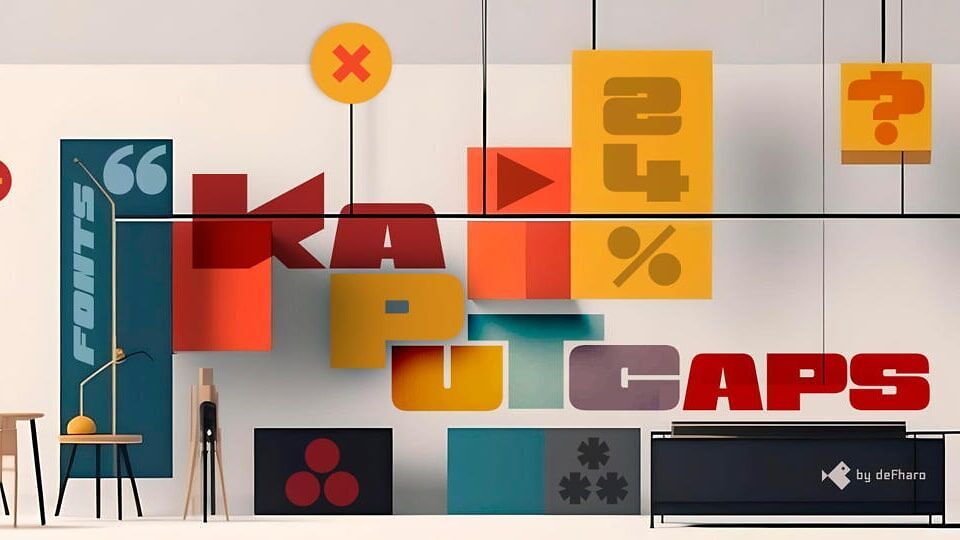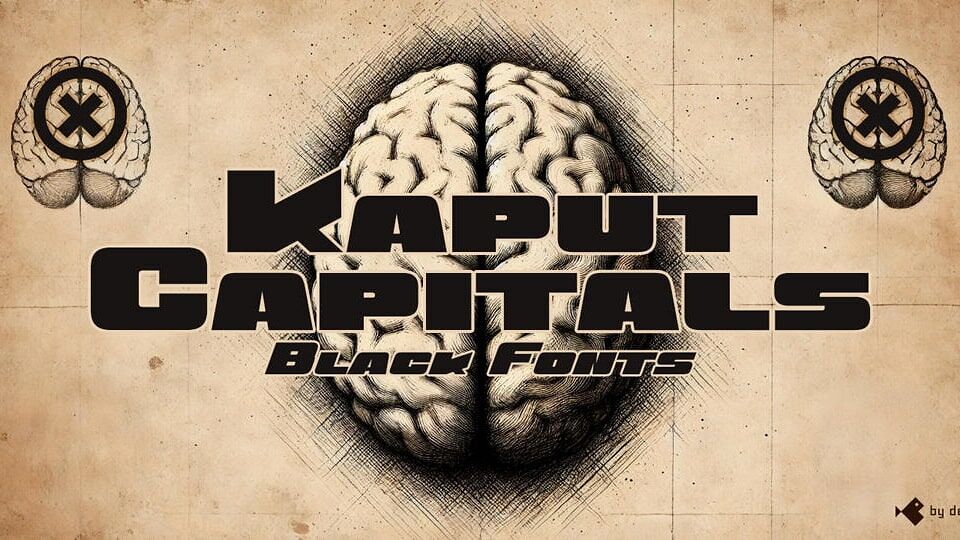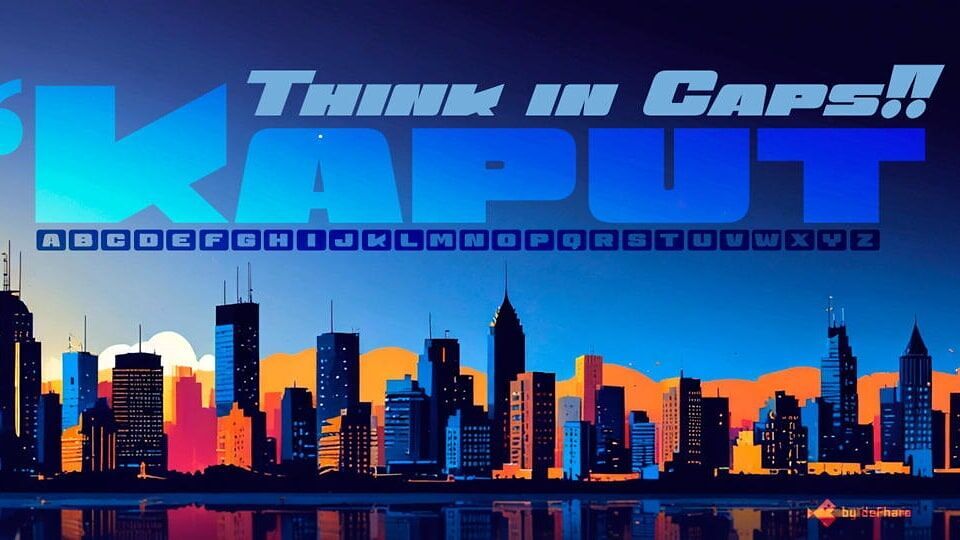
Kaput Black, a bold, heavy uppercase typeface, excels in crafting impactful titles and visuals. With a perfect blend of strength and sophistication, its semi-expanded design features thick lines, horns, and striking contrasts for eye-catching legibility. Meticulous metrics and kerning ensure harmony, making it ideal for headlines, posters, and branding with a powerful, refined edge.